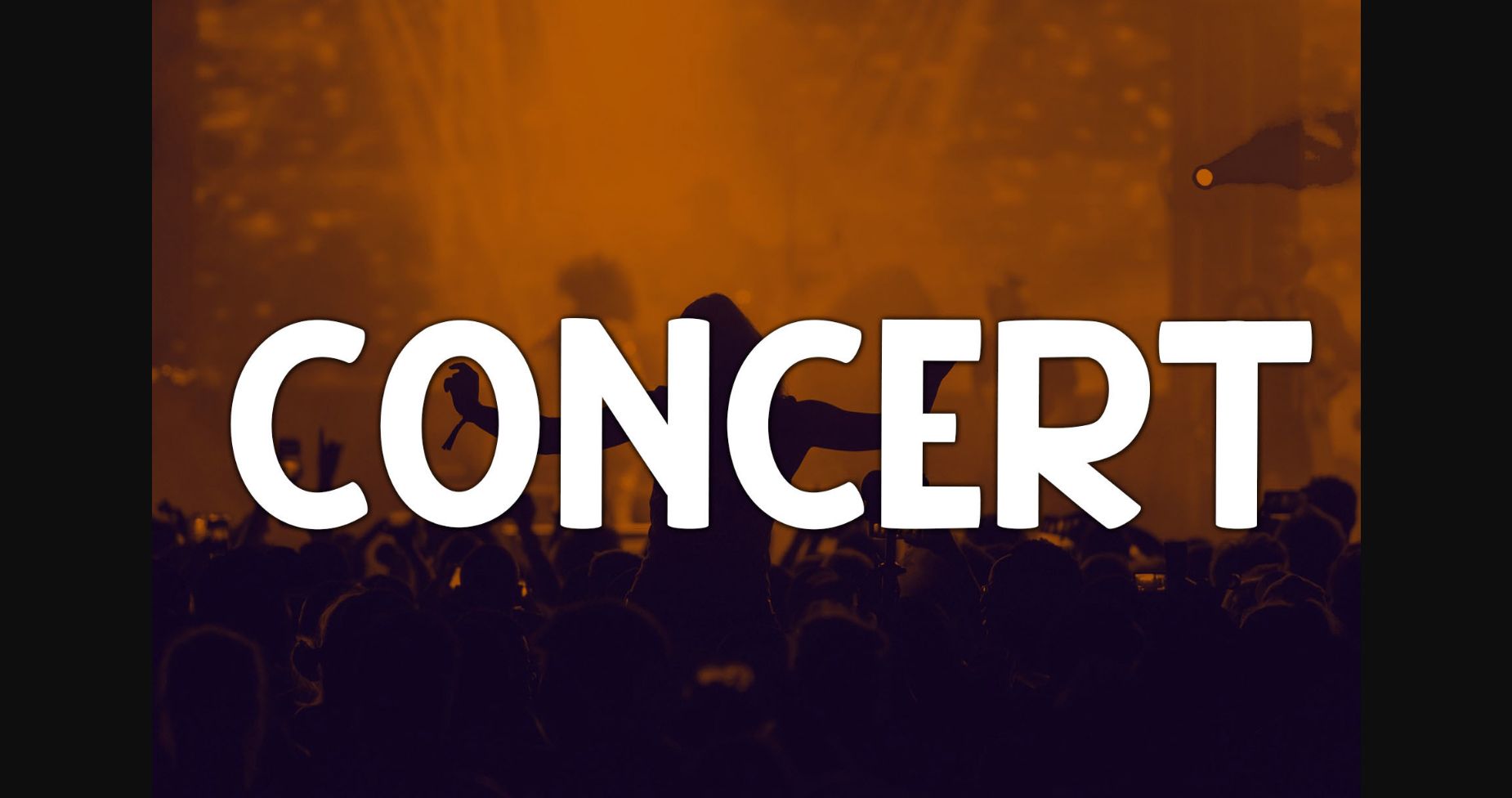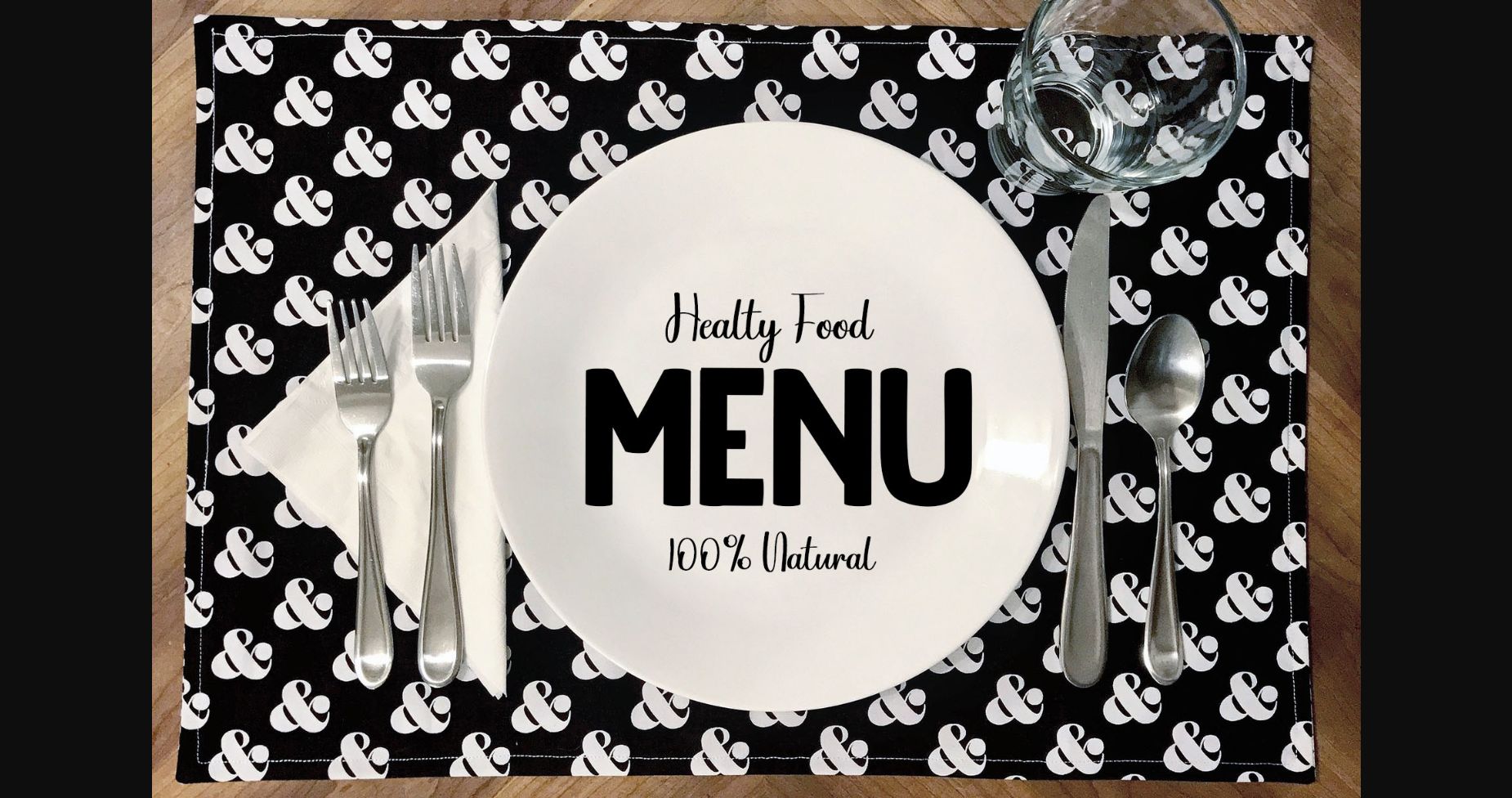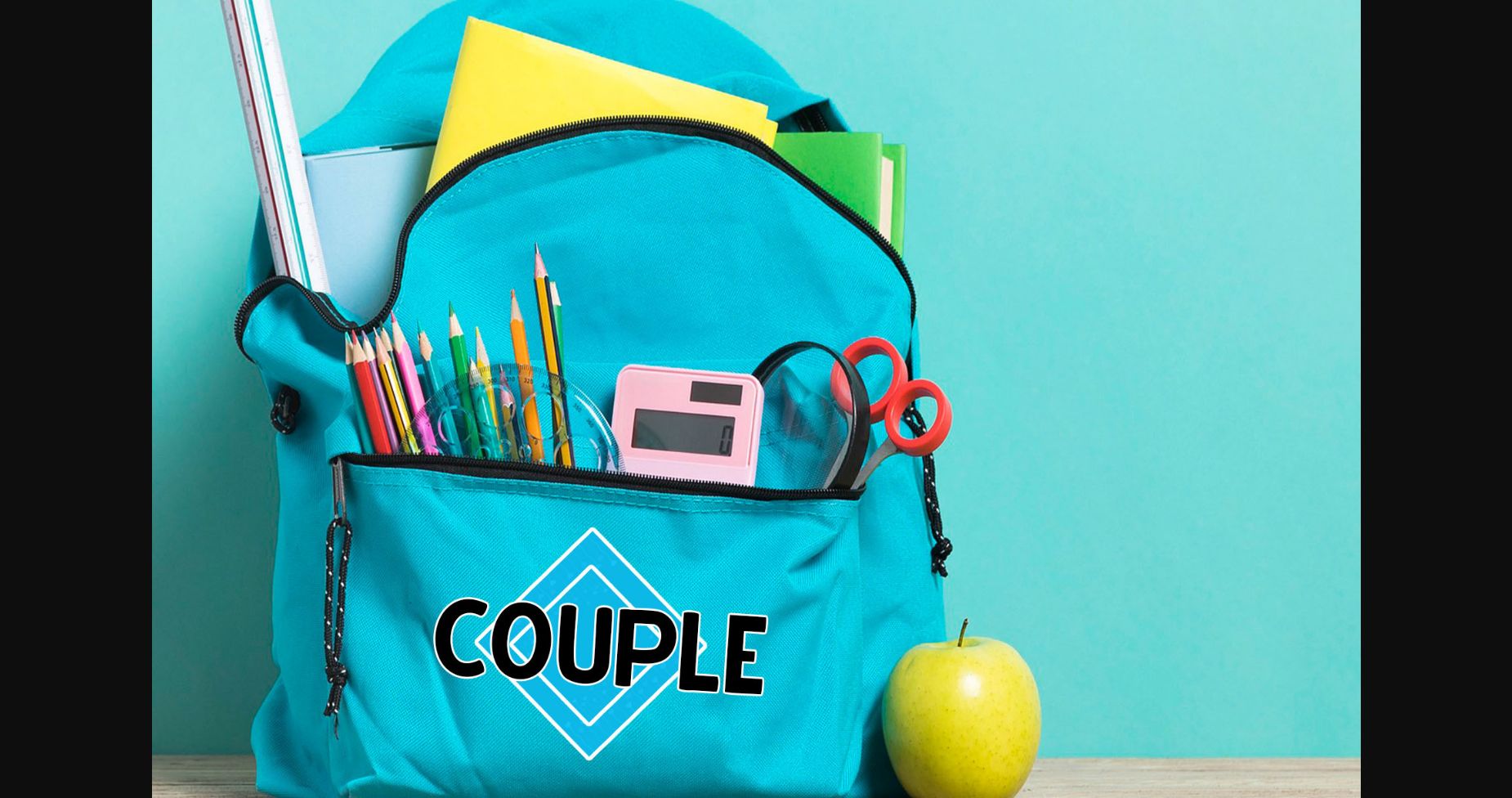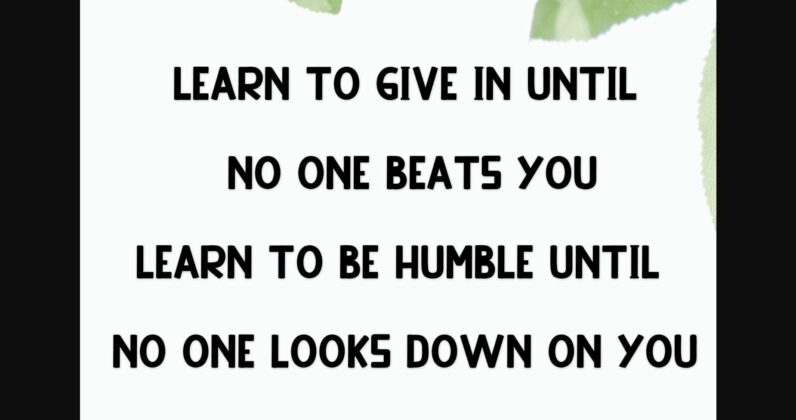
Concert Font
About Concert Font
Concert is a stylish and delicate script font. It has a clean, balanced, and smooth vibe and it will be a hit for any design that you want to add it to.